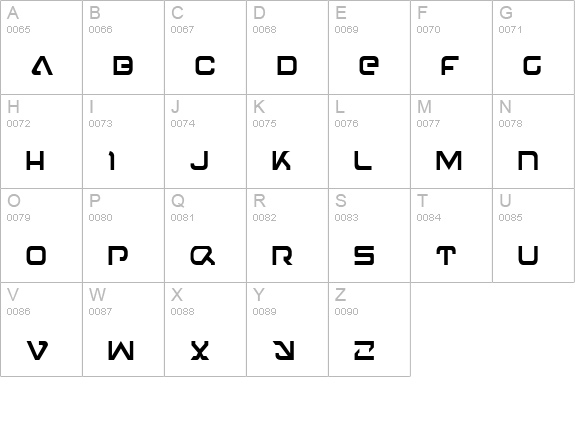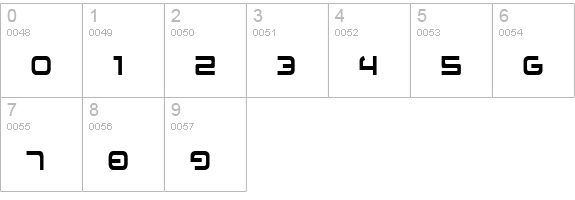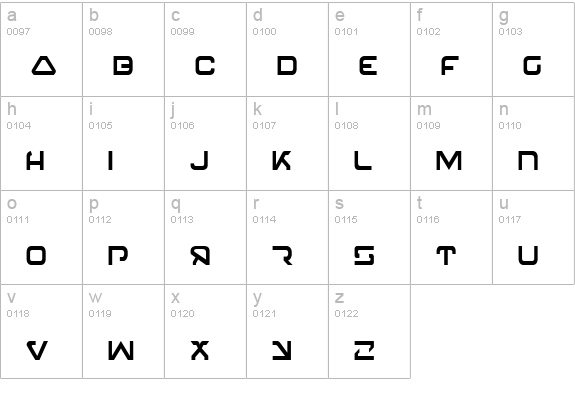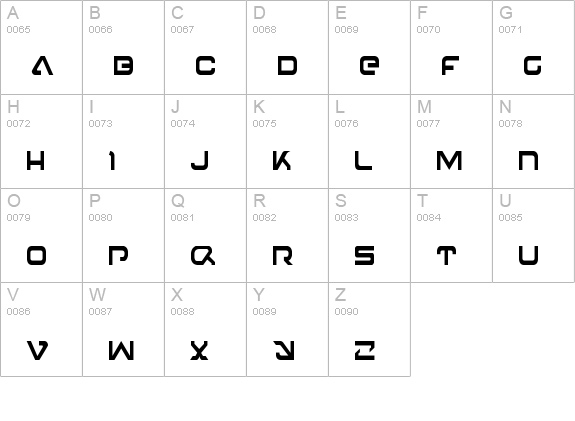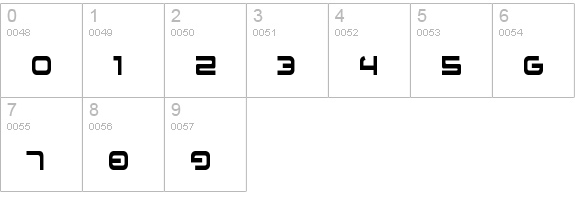
4114 Blaster Condensed is a distinctive, condensed-width variant in the 4114 typeface family \xE2\x80\x94 well suited to design and typography projects.
4114 Blaster Condensed font is a bold and striking typeface that exudes a modern and futuristic vibe. Its sharp edges and condensed design make it perfect for creating eye-catching headlines, logos, and branding materials. This versatile font is ideal for projects that require a strong and impactful visual presence. The best part about 4114 Blaster Condensed font is that it is available for free download at FontsMarket.com. This means you can easily access and use this powerful font in your projects without any cost. Don't miss out on the opportunity to enhance your designs with the unique and captivating style of 4114 Blaster Condensed font. Download it today and let your creativity soar!